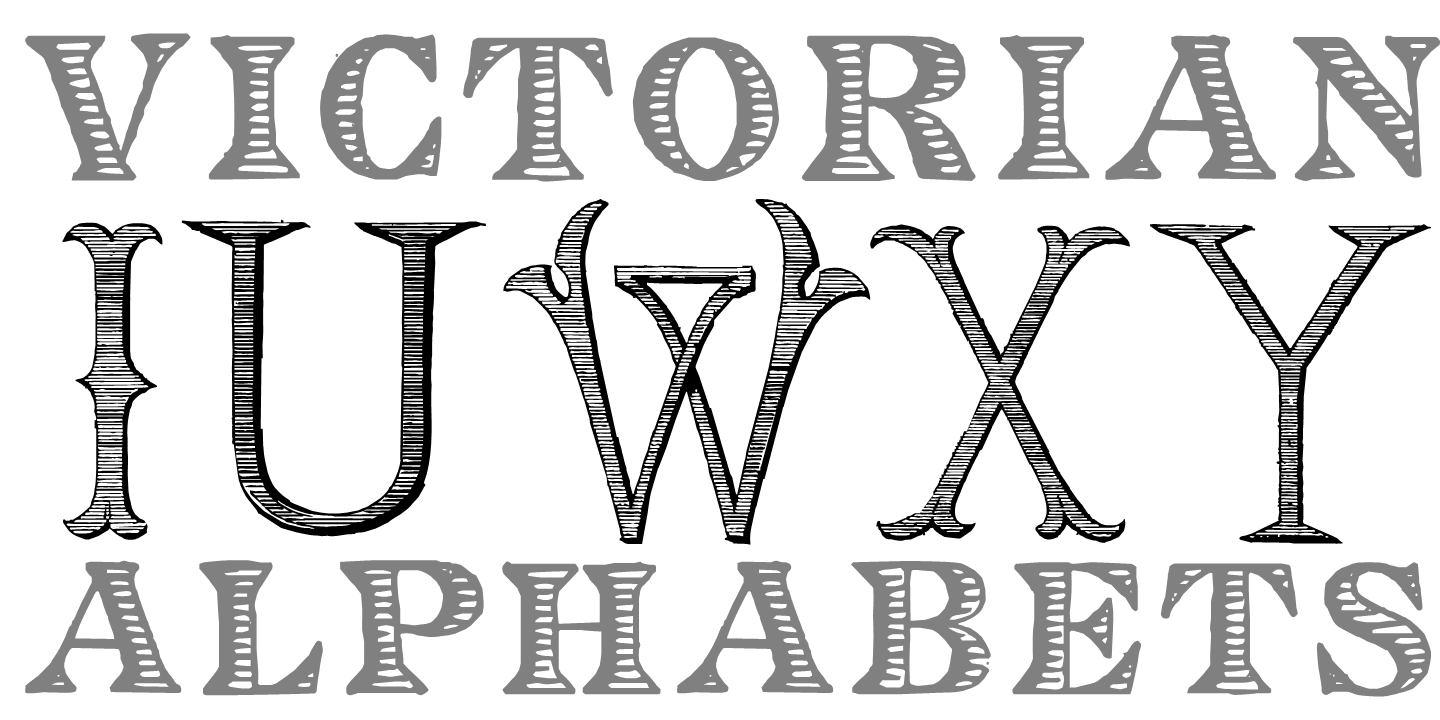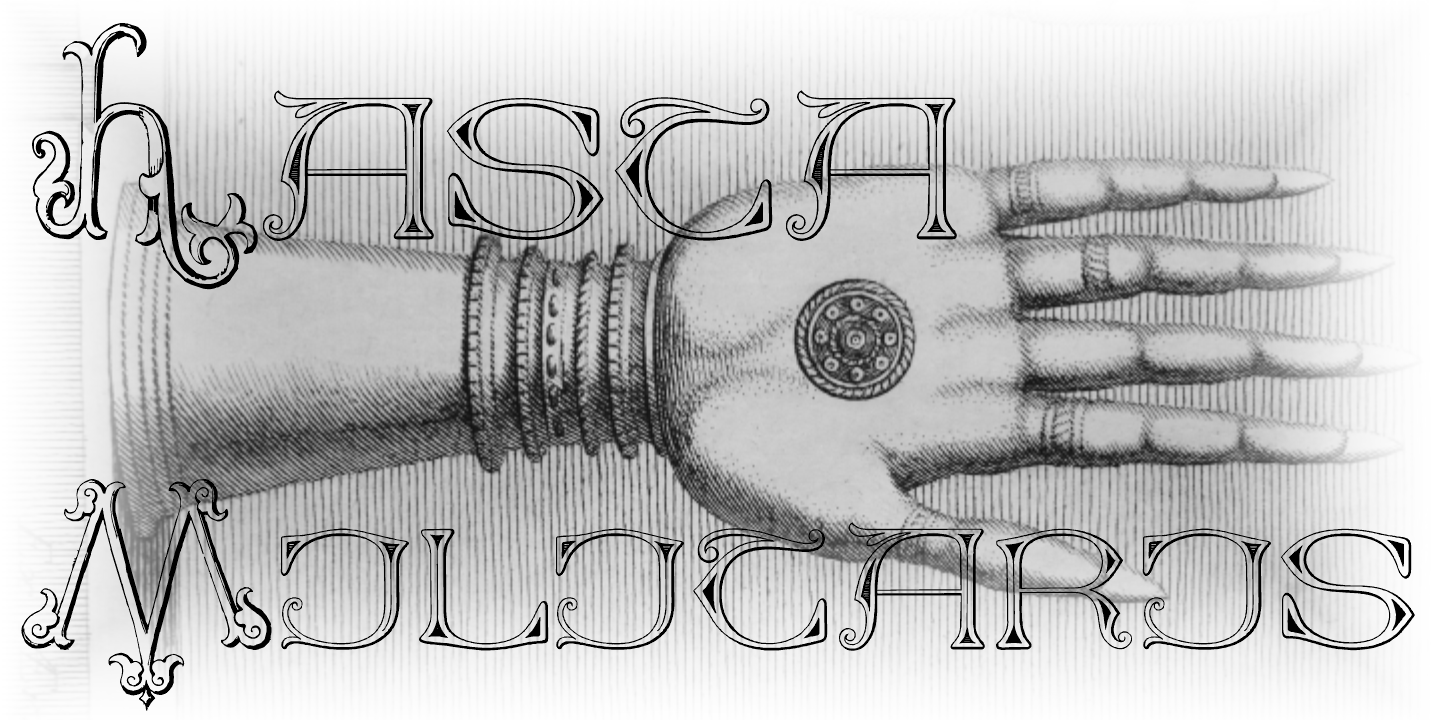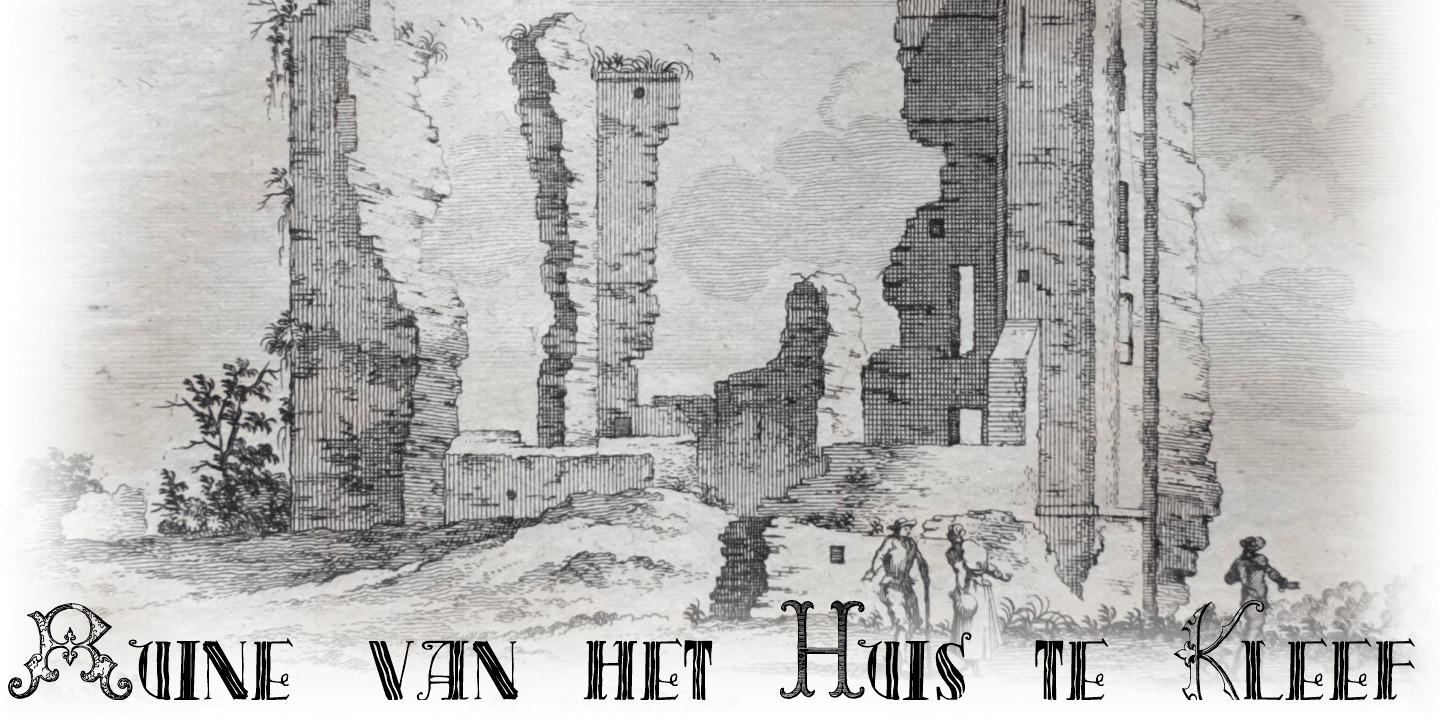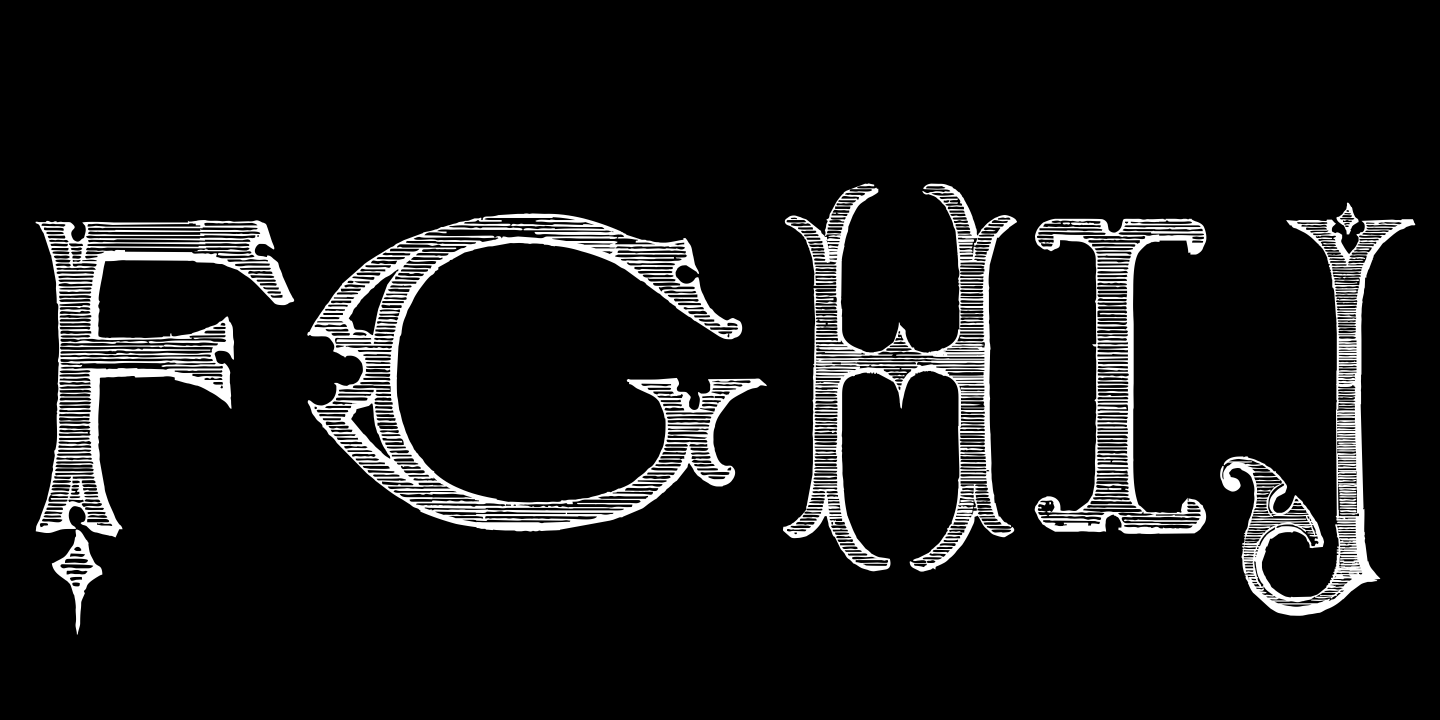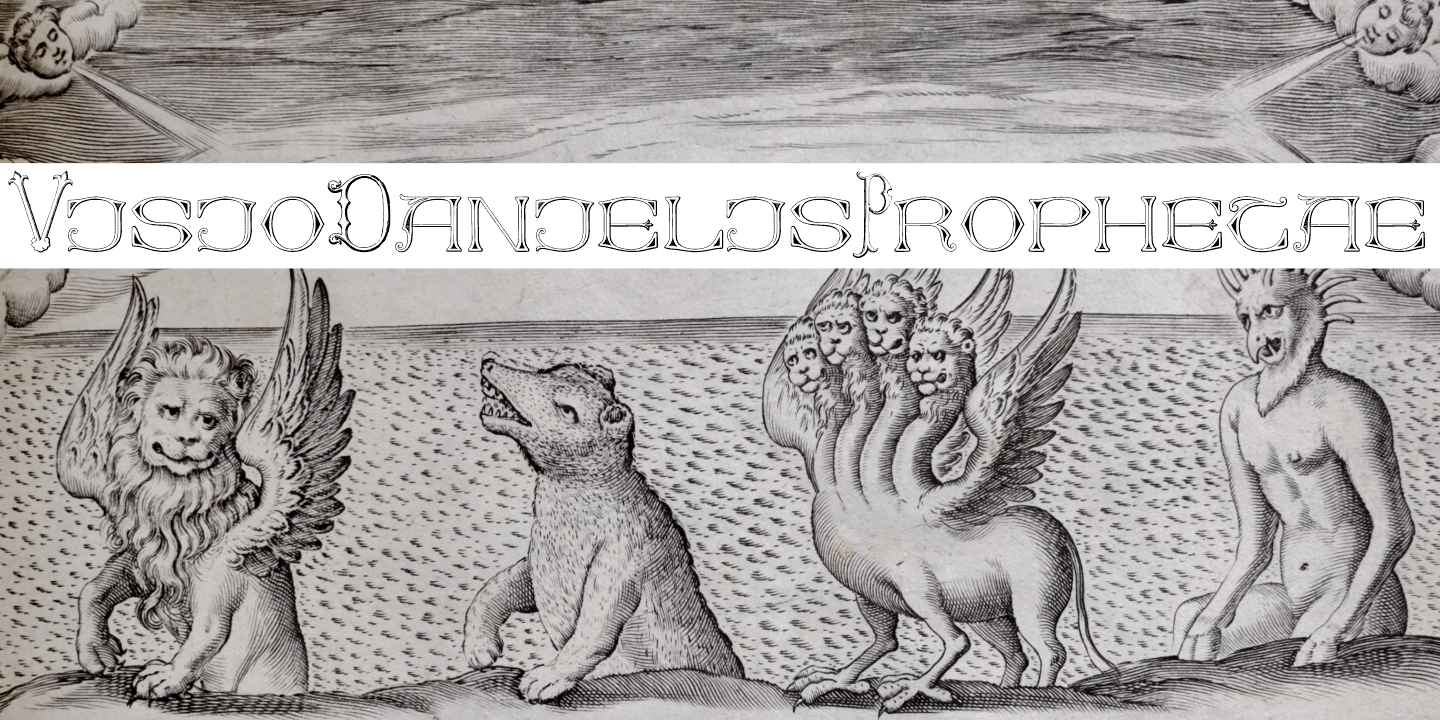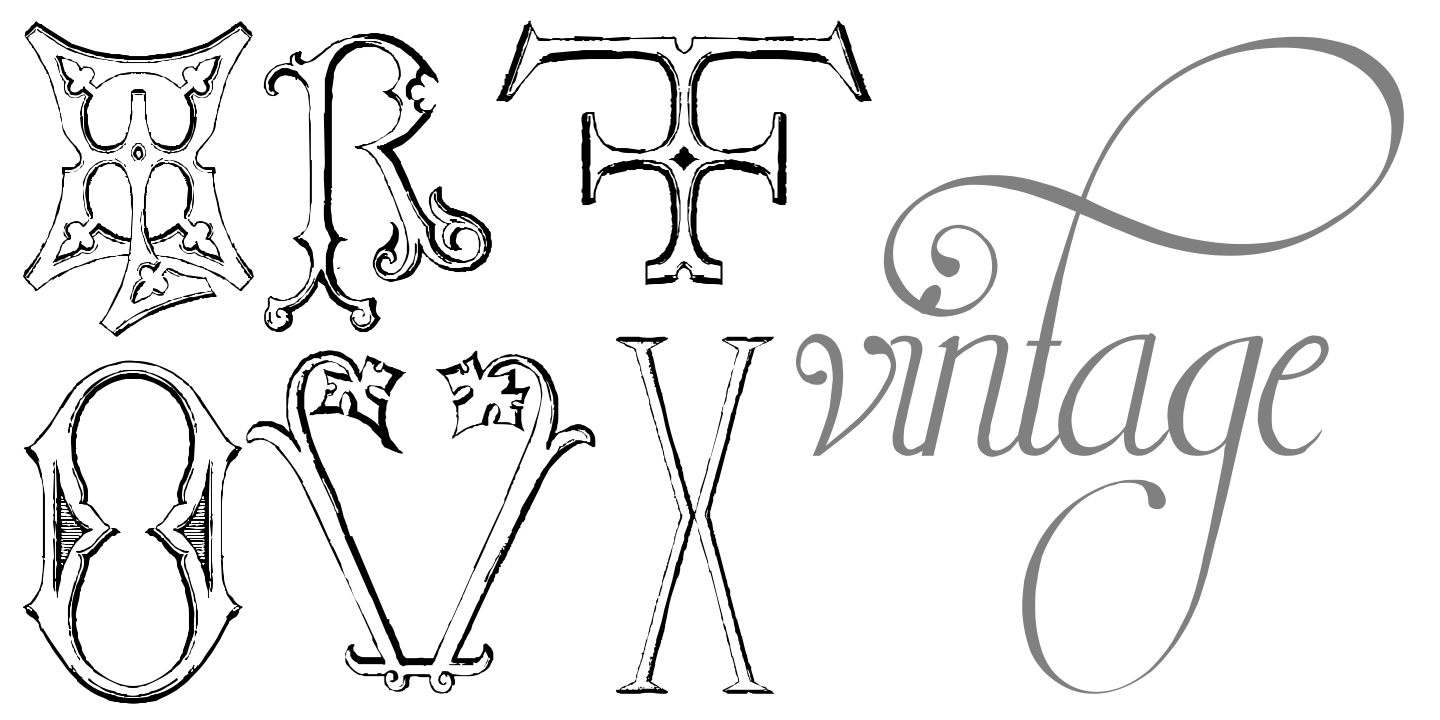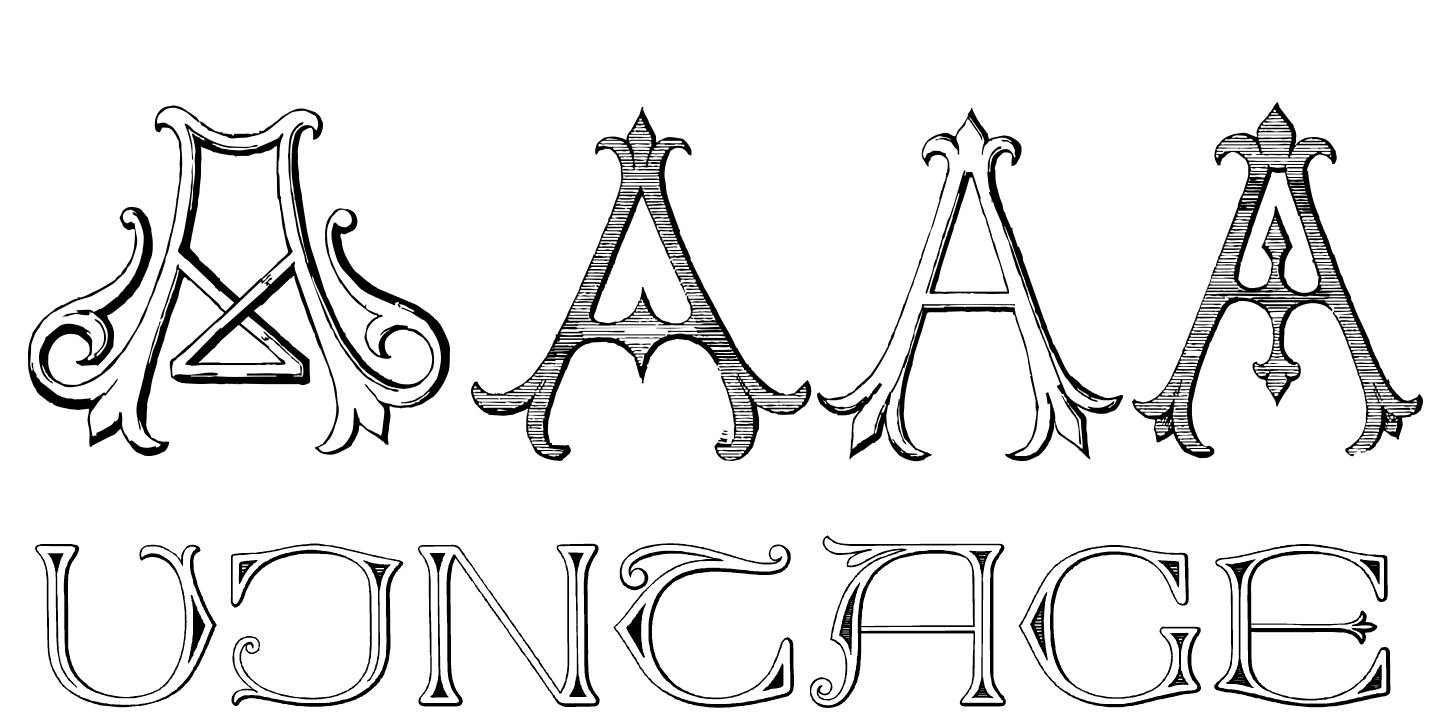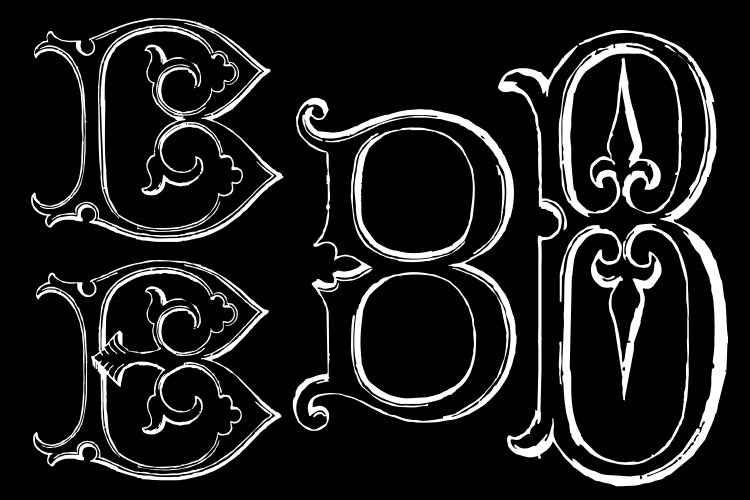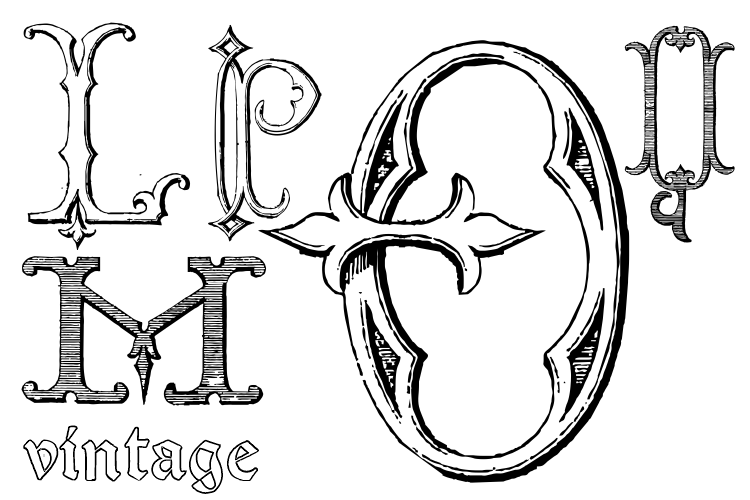
Victorian Alphabets
Font Family by Intellecta Design
Victorian Alphabets is a incoming family of complete victorian style alphabets, researched and developed upon a comprehensive number of vintage books, magazines and catalogues from XIX century. The "Victorian Alphabets A" font has just A' designs, performing 52 differnt A's to your use. And the Victorian Alphabets B and C has, too 52 B and C letters, only, each.